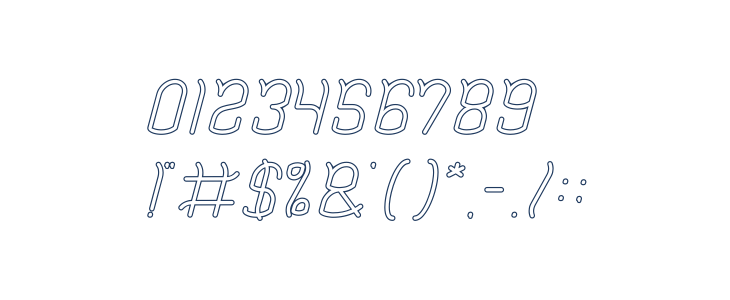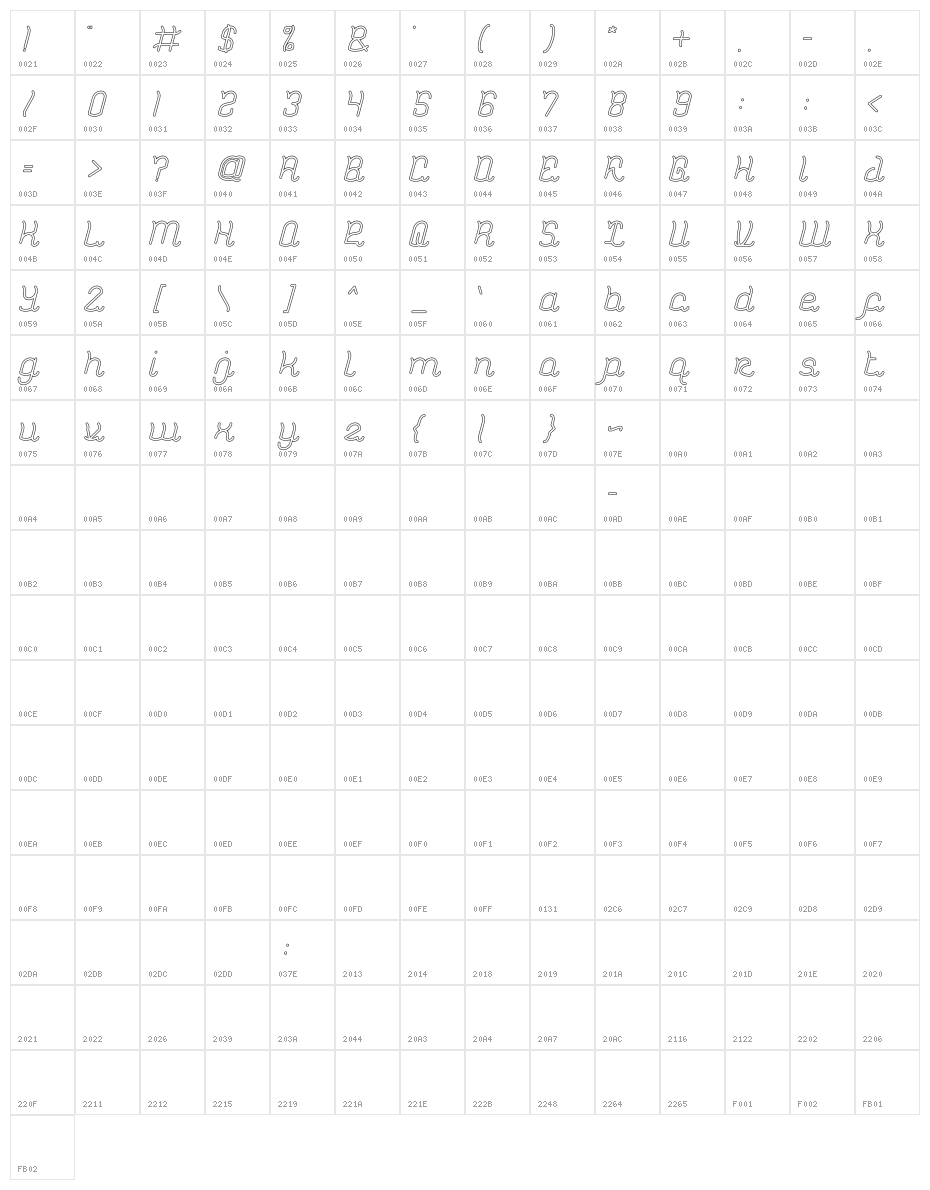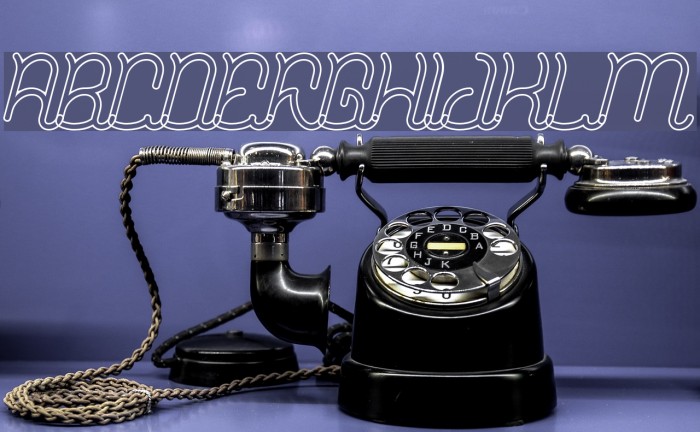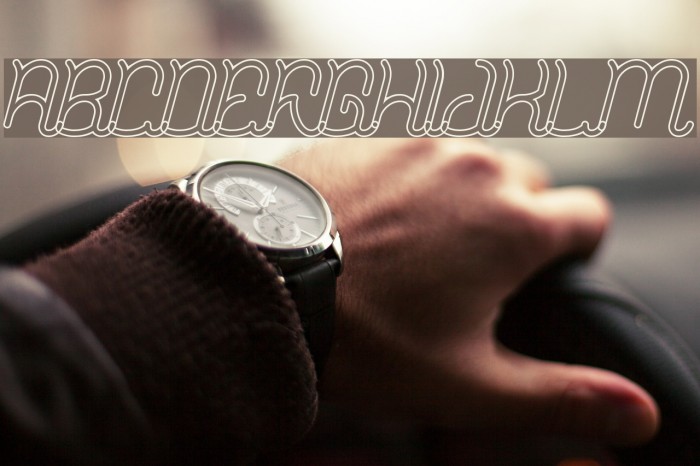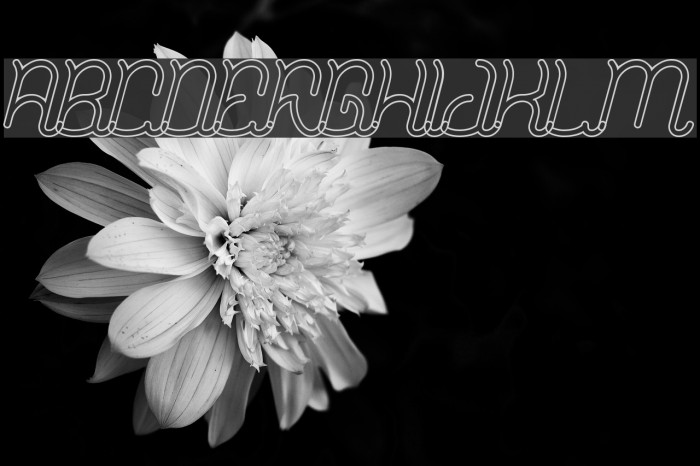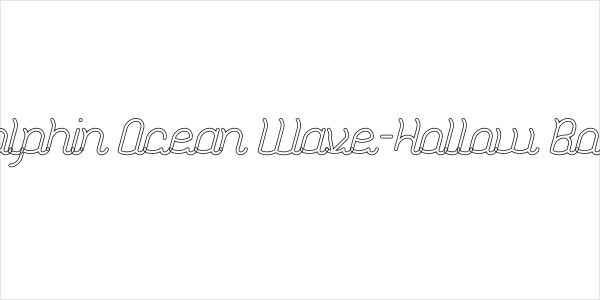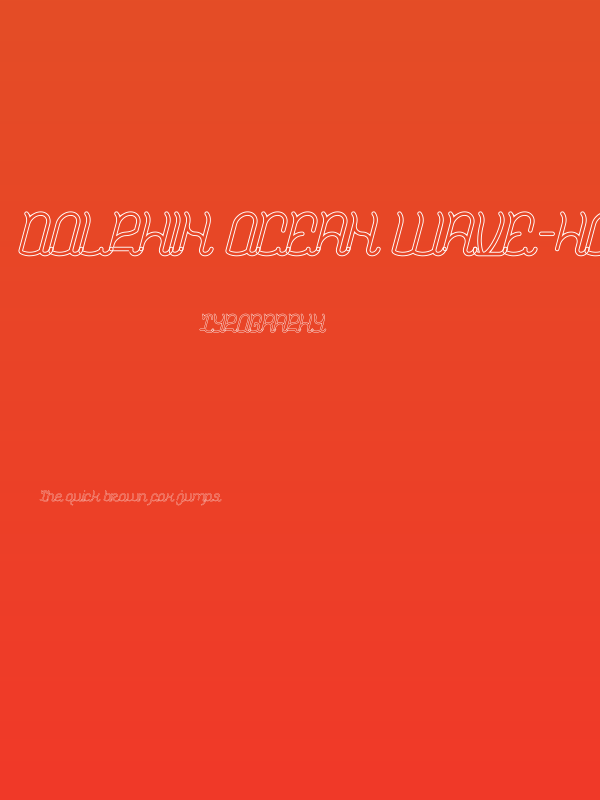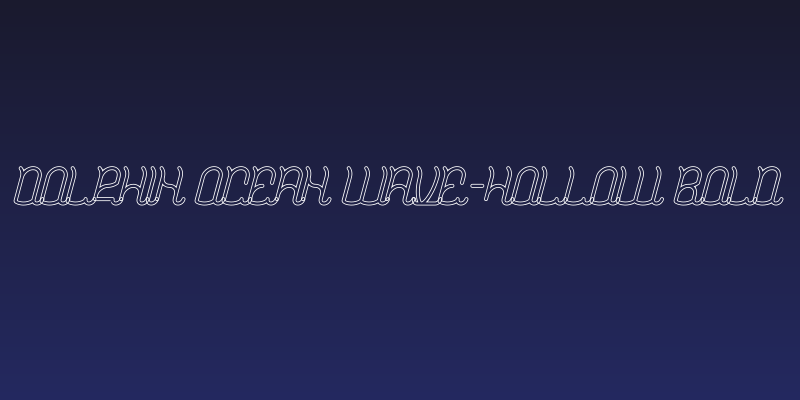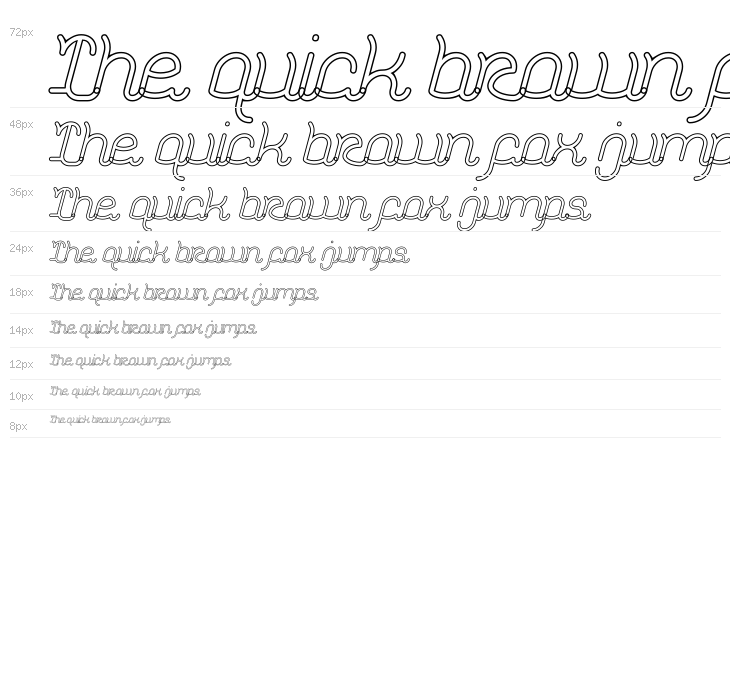
Dolphin Ocean Wave-Hollow Bold Font
Dolphin Ocean Wave-Hollow Bold Description
This font features a unique hollow design with a flowing, wave-like structure that gives it a dynamic and playful appearance. The characters are interconnected with smooth, continuous lines, creating a sense of movement and fluidity. The uppercase and lowercase letters maintain a consistent style, with rounded edges and a slightly italicized slant, enhancing the overall aesthetic. The numbers and special characters follow the same design principles, ensuring uniformity across the font. Its boldness adds emphasis, making it suitable for attention-grabbing designs.
| Proposed Projects | Ideal for creative projects such as logos, posters, and branding materials that require a distinctive and lively touch. |